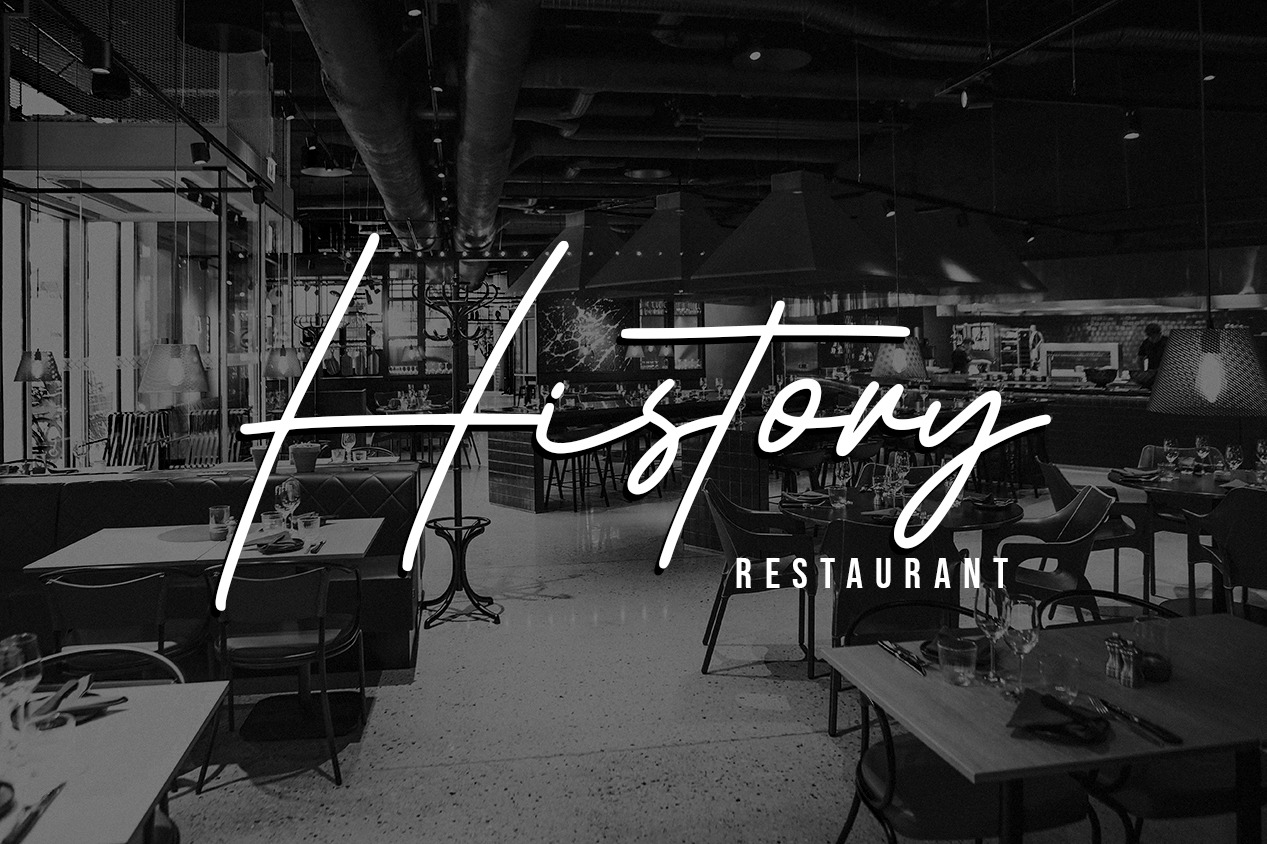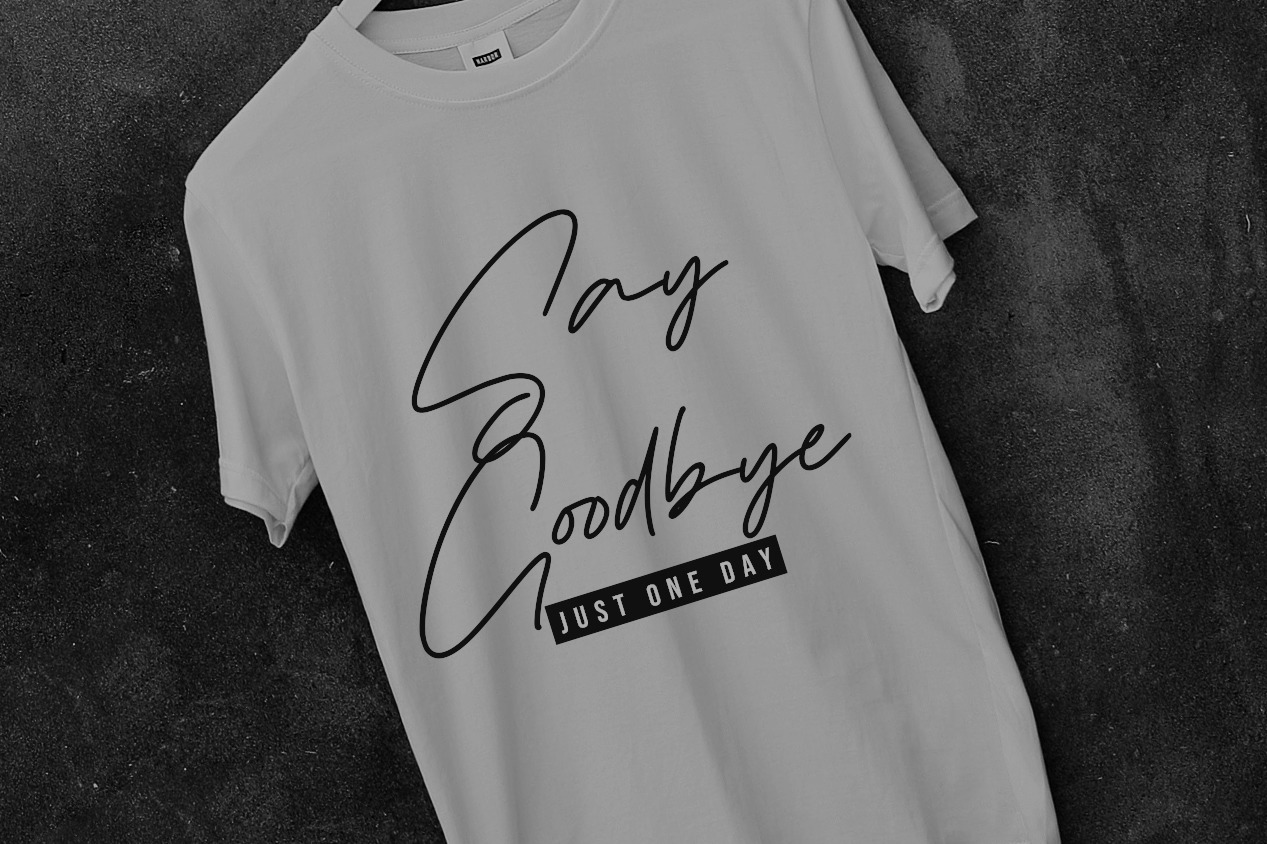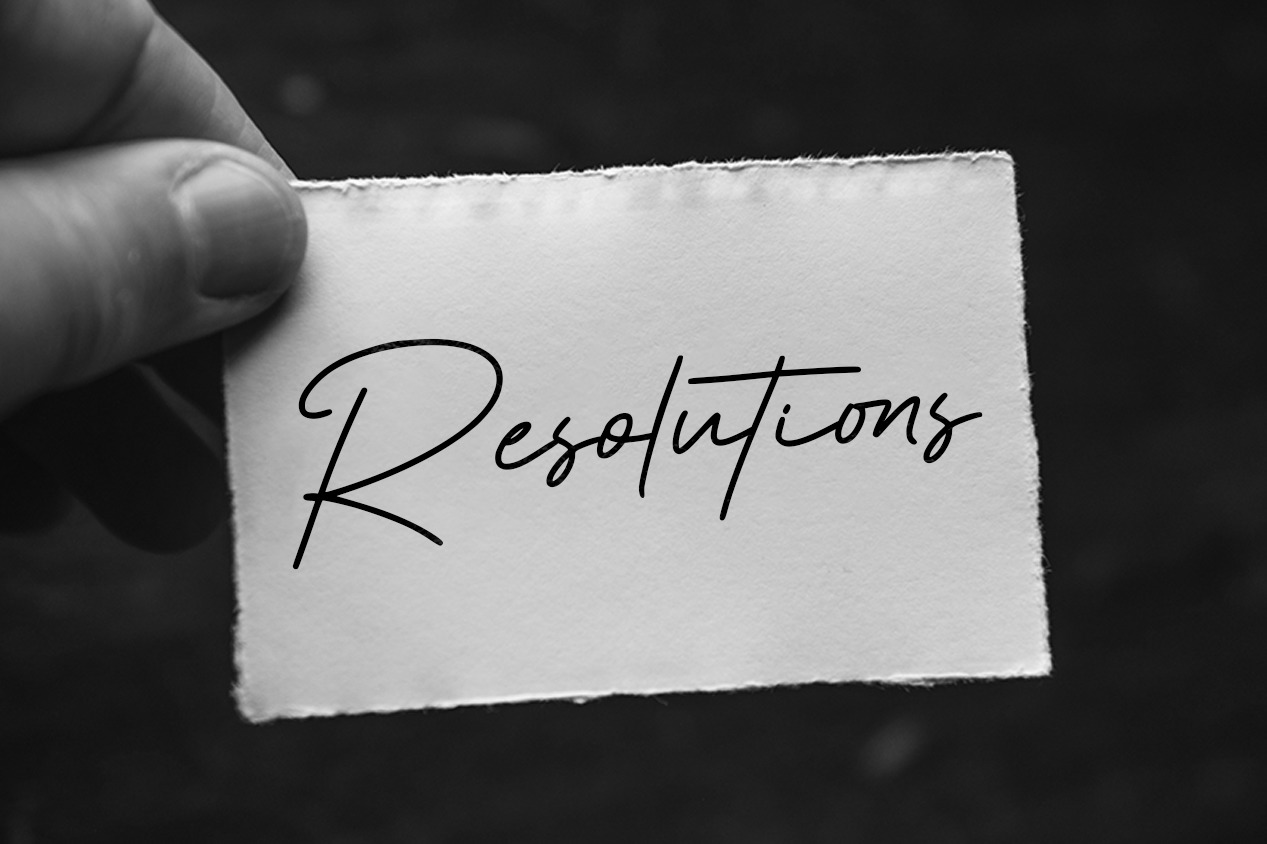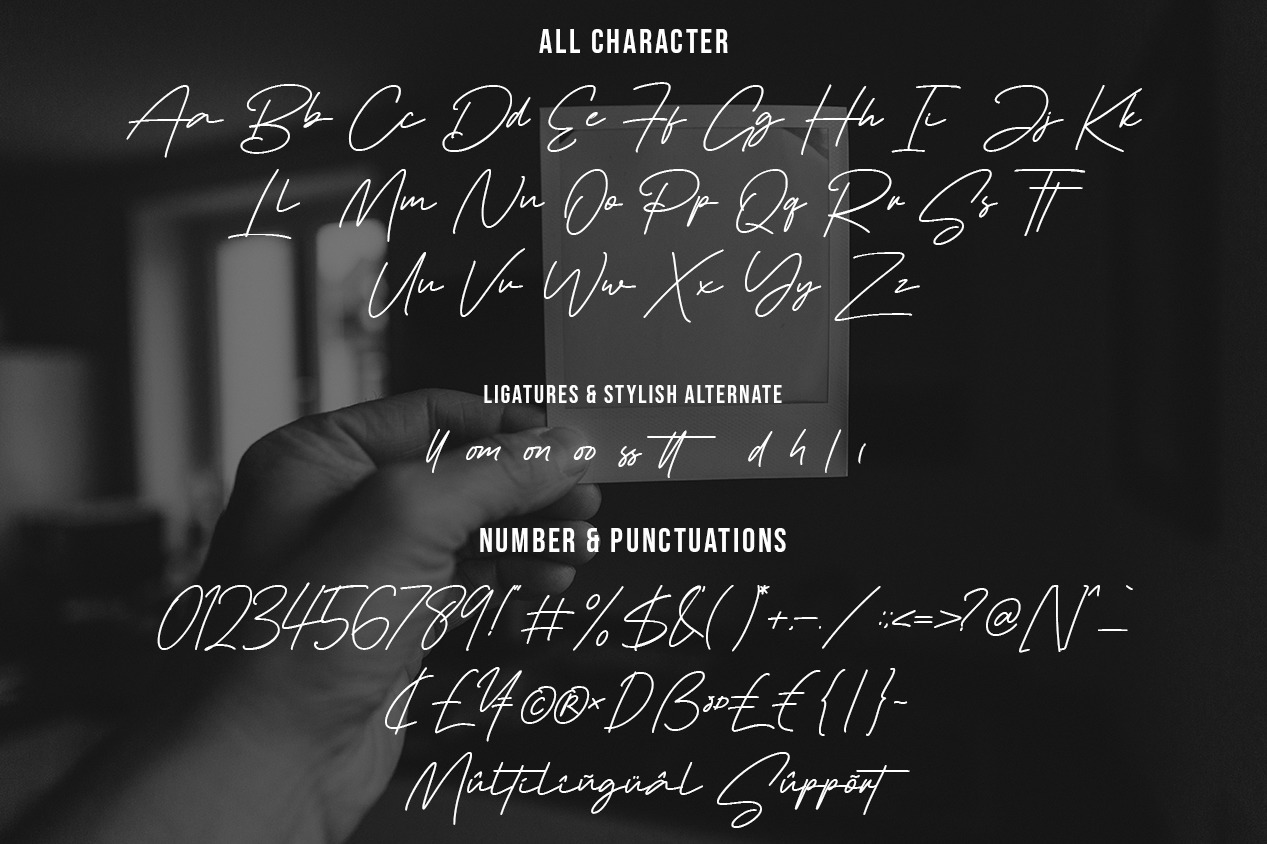
Pollaroid Font
Introducing Pollaroid is a signature monoline font that is so elegant and luxurious. It is suitable for logo / branding projects, large header text and product packaging as well as signatures.
Pollaroid Features:
- Standart Character
- Ligatures
- Stylish Alternate
- Number & Punctuation